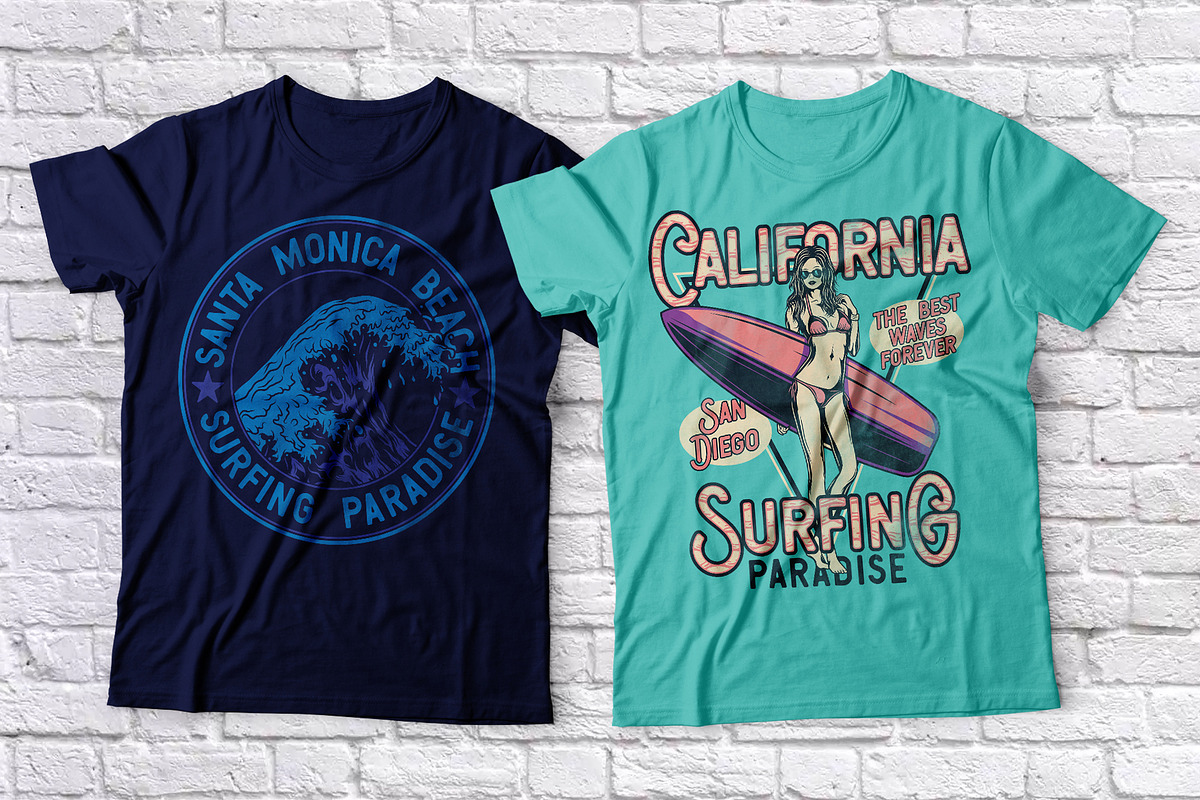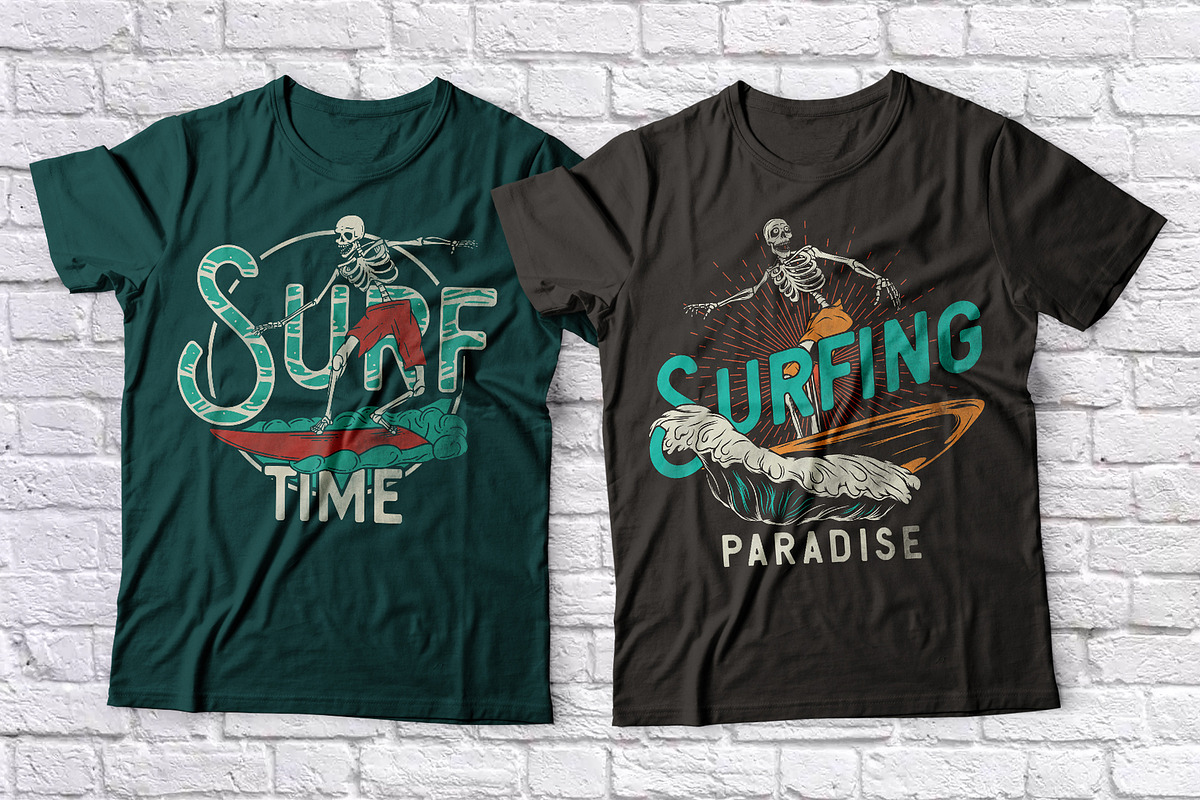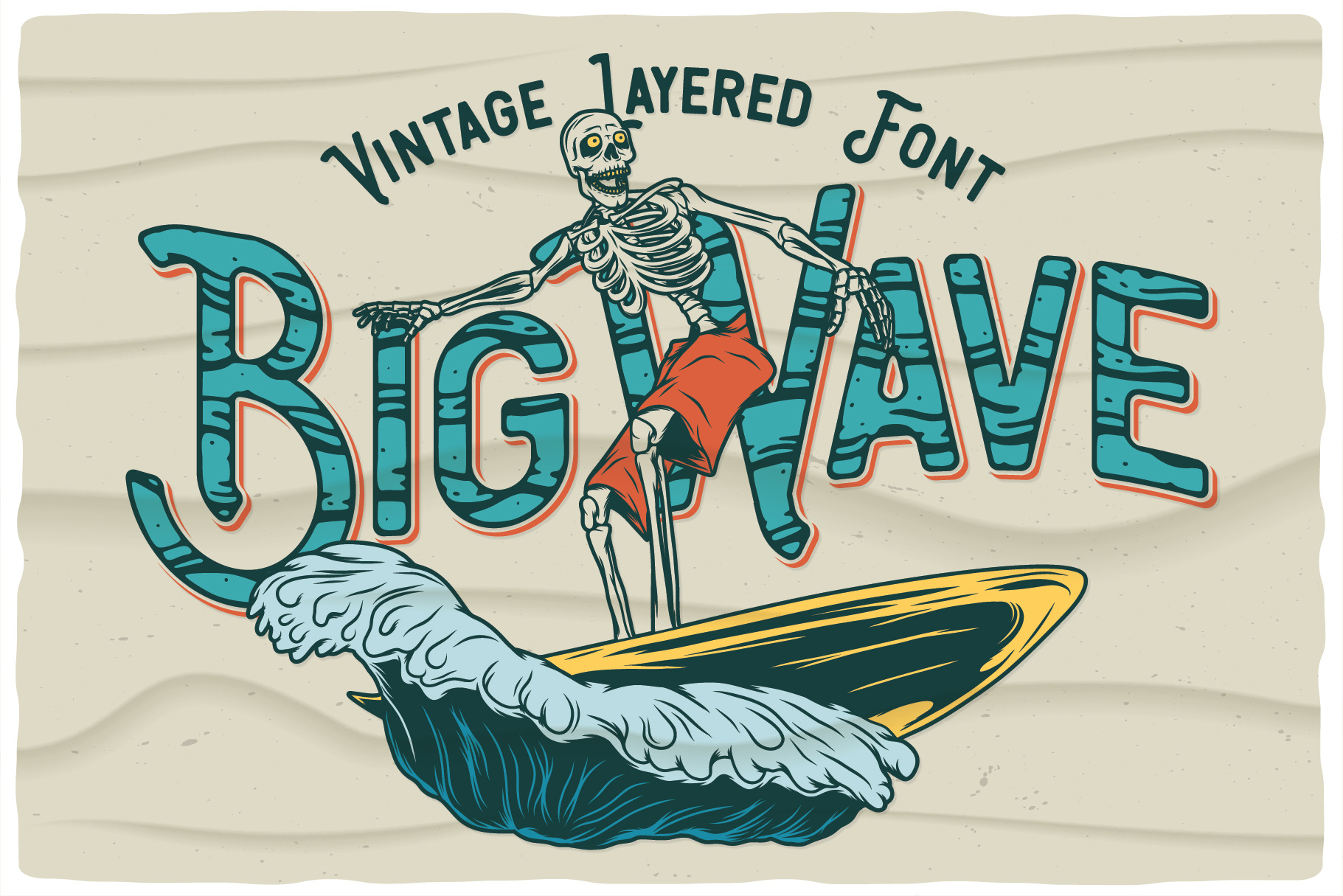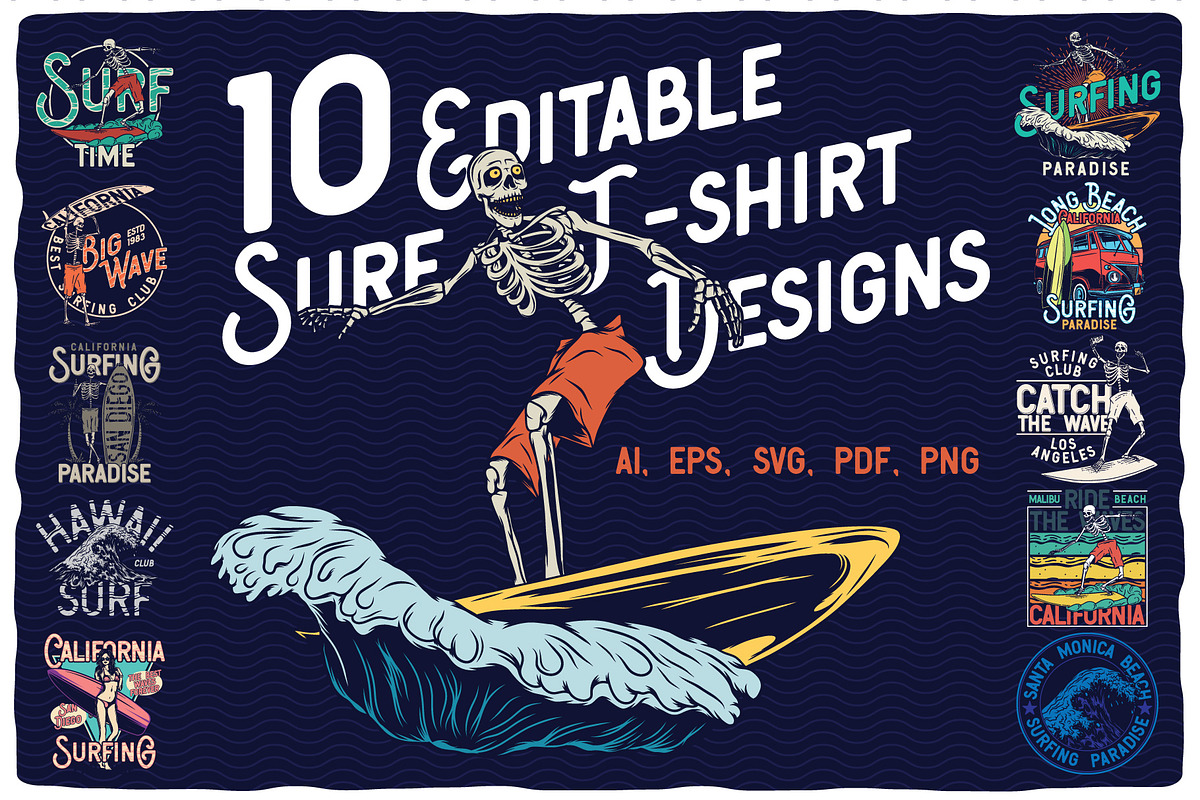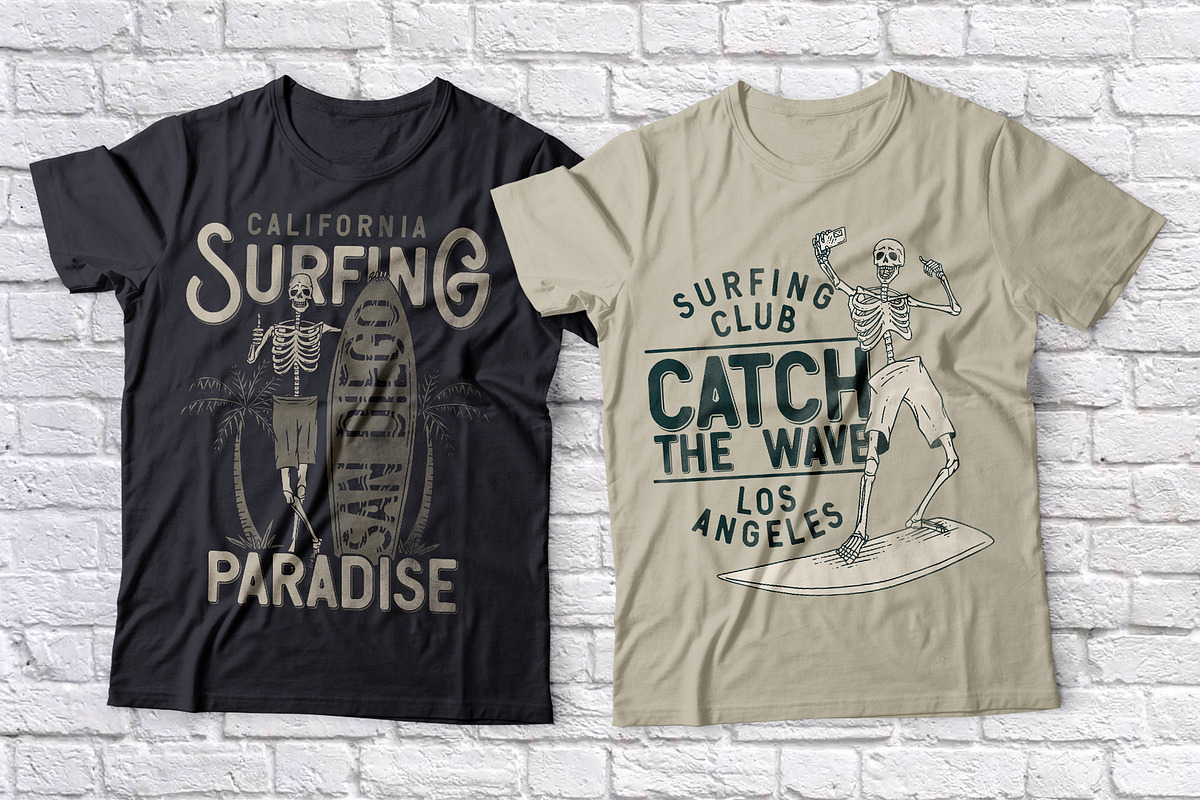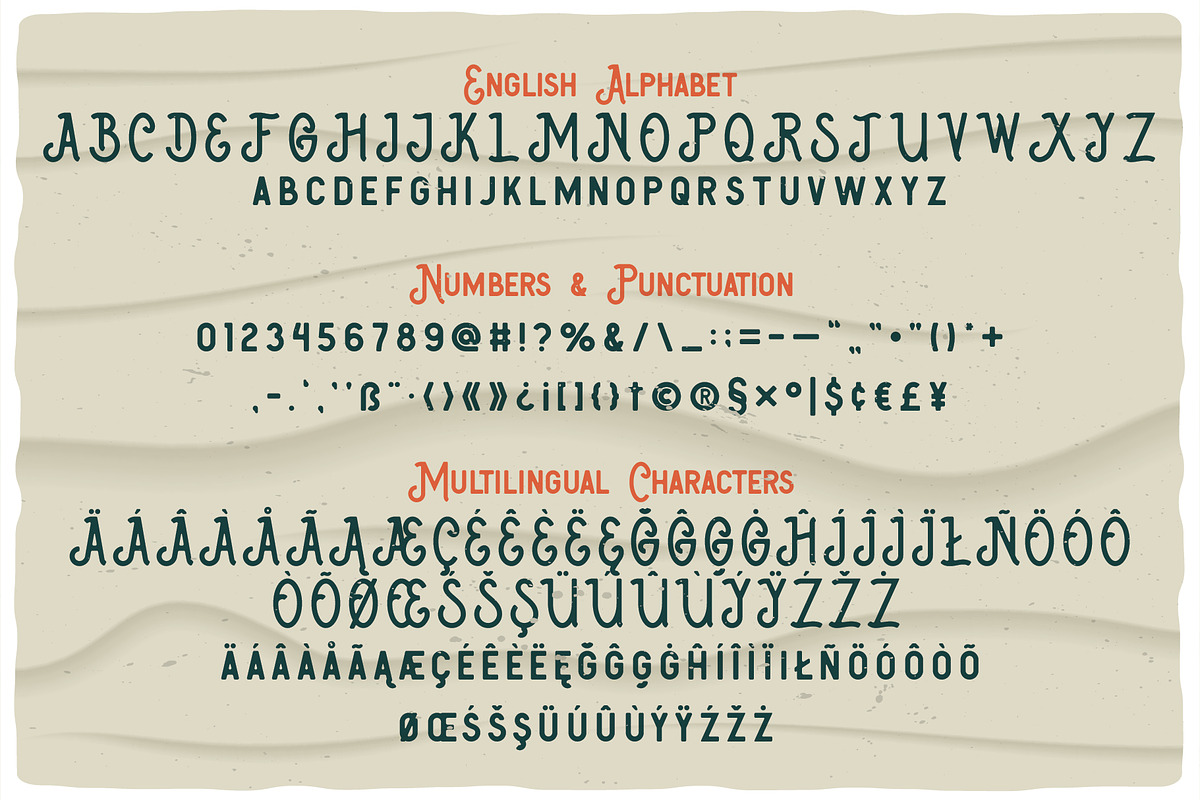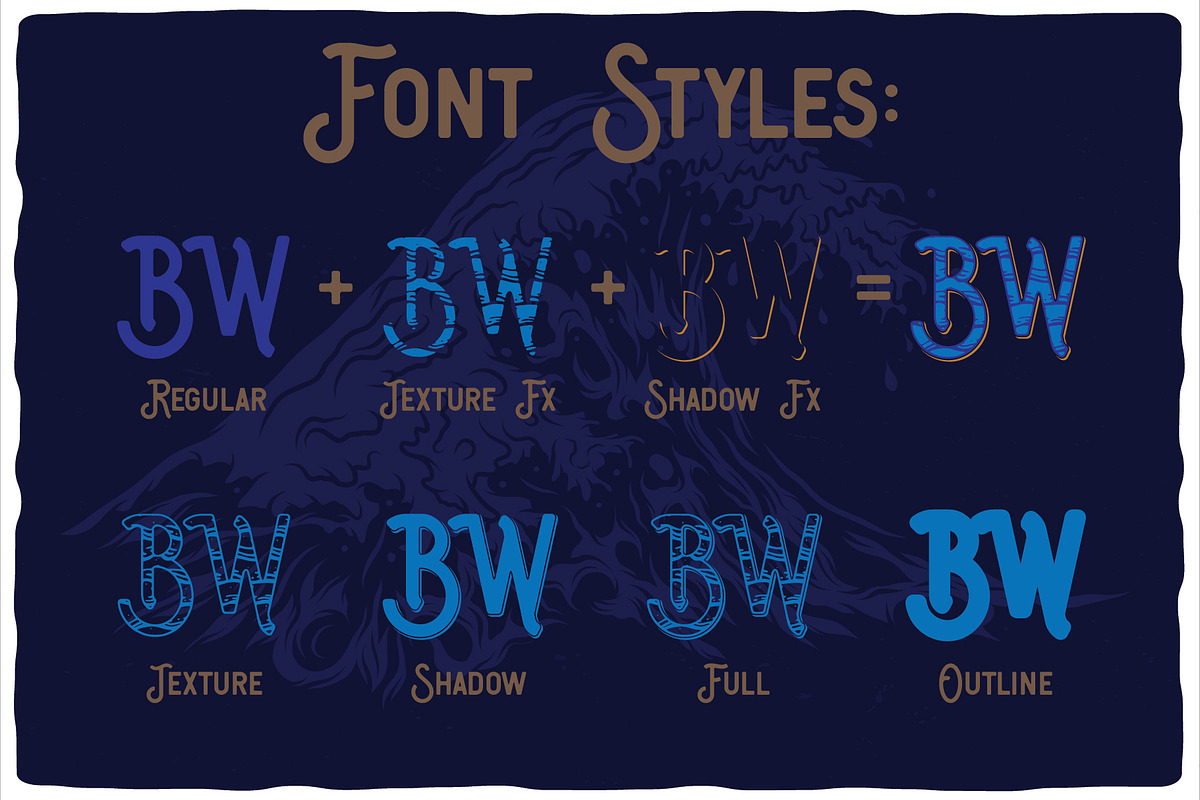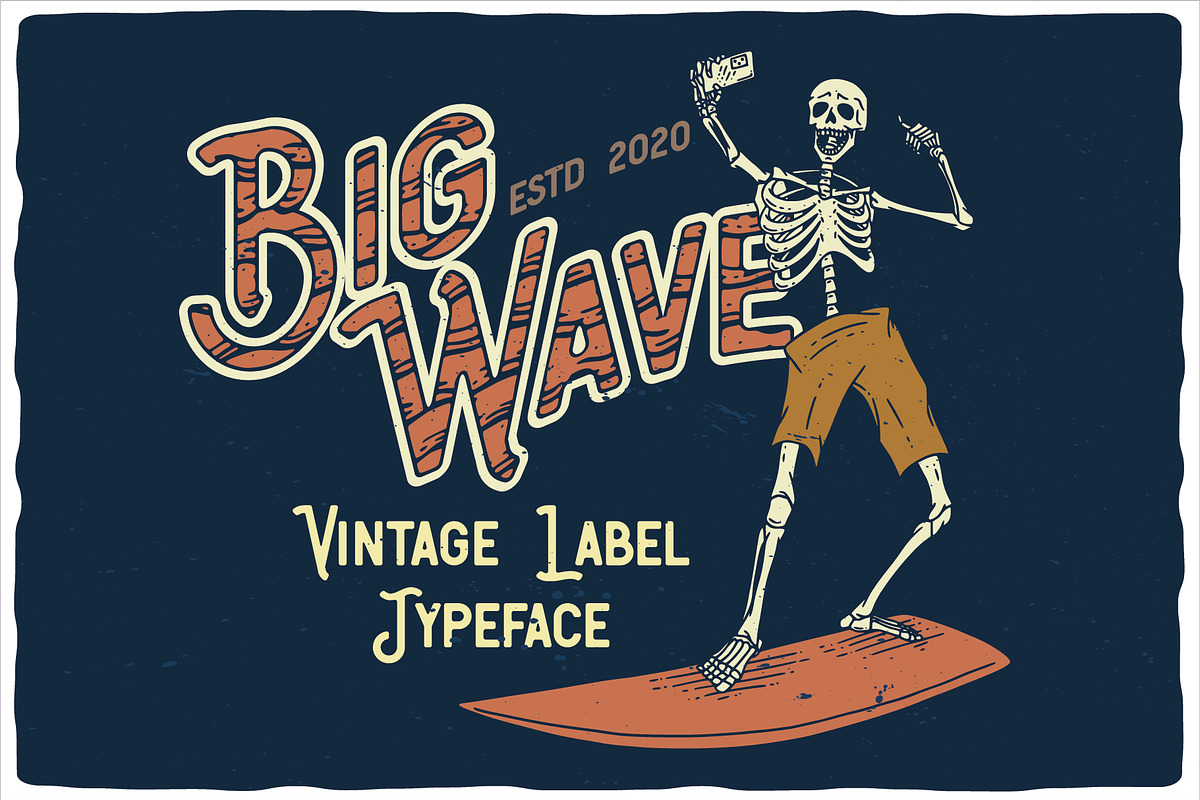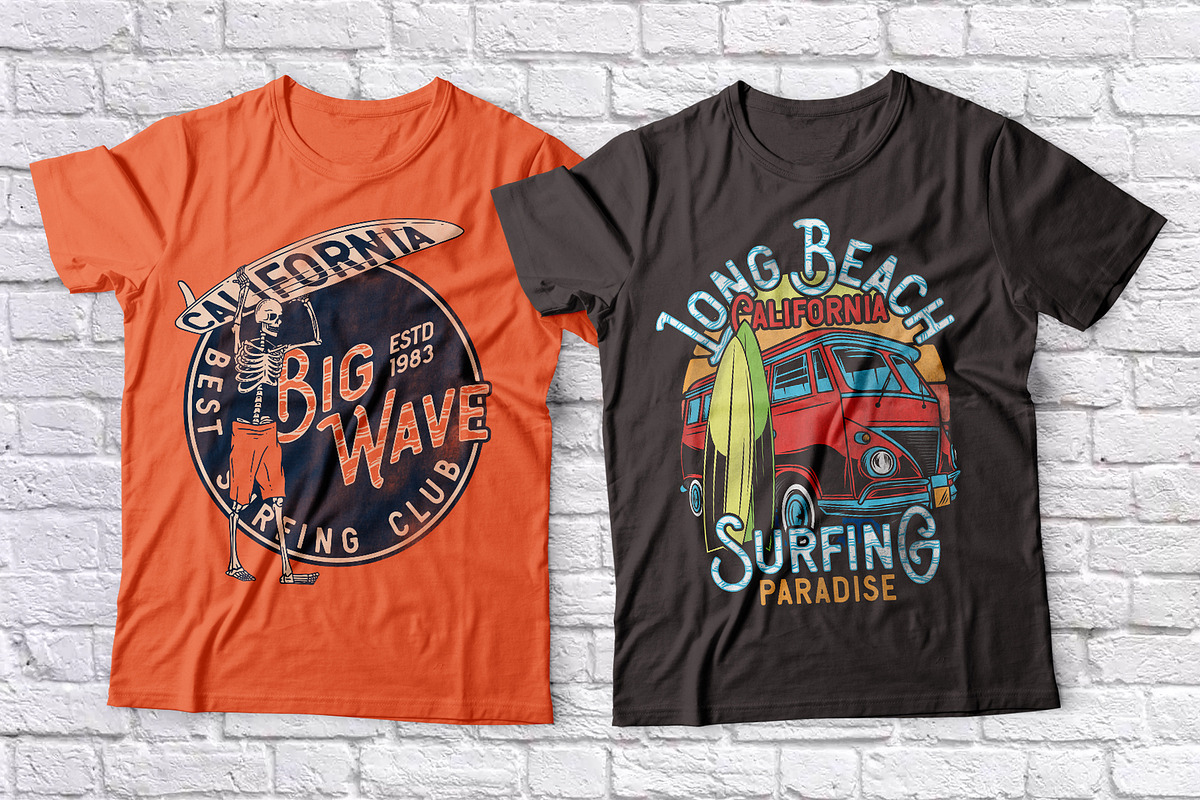
Big Wave Layered Font
Introducing a vintage look label font named Big Wave. All available characters you can see at the screenshot. This font have 7 styles - Regular, Full, Shadow, Texture, Shadow FX, Texture FX and Outline. This font will good viewed on any retro design like poster, t-shirt, label, logo etc.
- A lot of additional characters and multilingual support